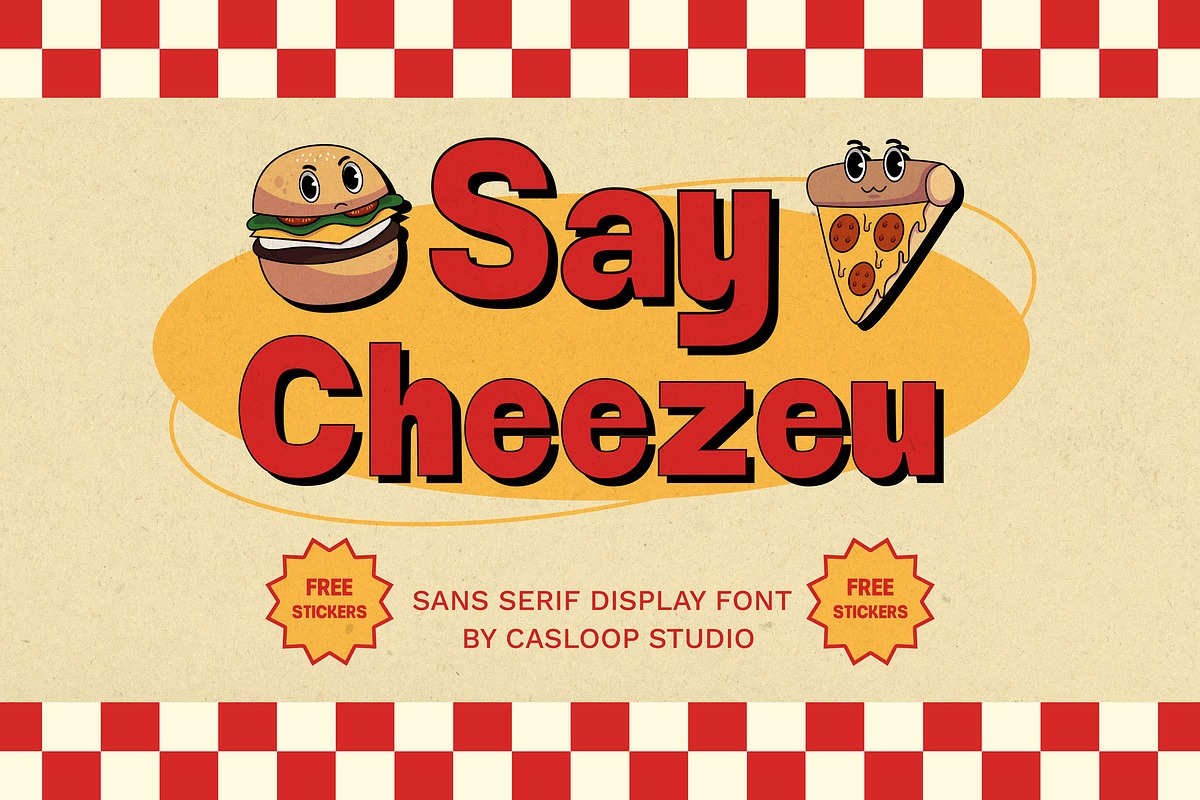
Say Cheezeu – Diplay Sans Serif Font
Say Cheezeu – Diplay Sans Serif Font is a premium-quality font developed to enhance your work with a polished, modern, and visually elevated look. Say Cheezeu, inspired by the retro aesthetics of fast-food restaurants. With its curved and bold design, Say Cheezeu creates a playful impression, making your designs more engaging and attractive. Suitable for various projects such as food branding, packaging, clothing, and other creative endeavors. This font comes with various features, including alternatives, ligatures, and multilingual support. Don’t miss out on the exclusive set of 5 ‘Mr. Pizz n Friends’ stickers available. Perfect your design by combining letters according to your preferences using Say Cheezeu.